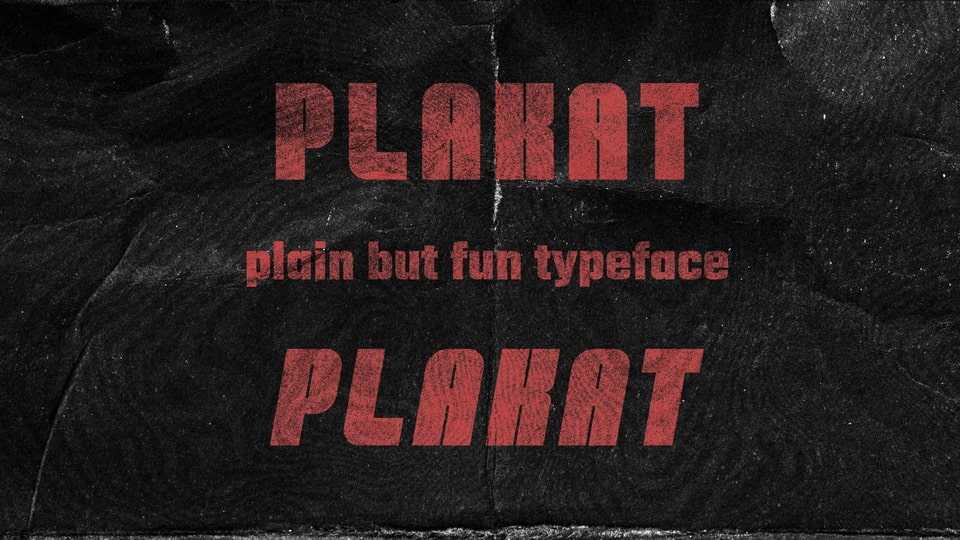
Download Plakat font, a bold yet fun handmade custom typeface. With its impact look Plakat font is great for posters, flyers, advertisements.
Designer: Emirhan Kayar